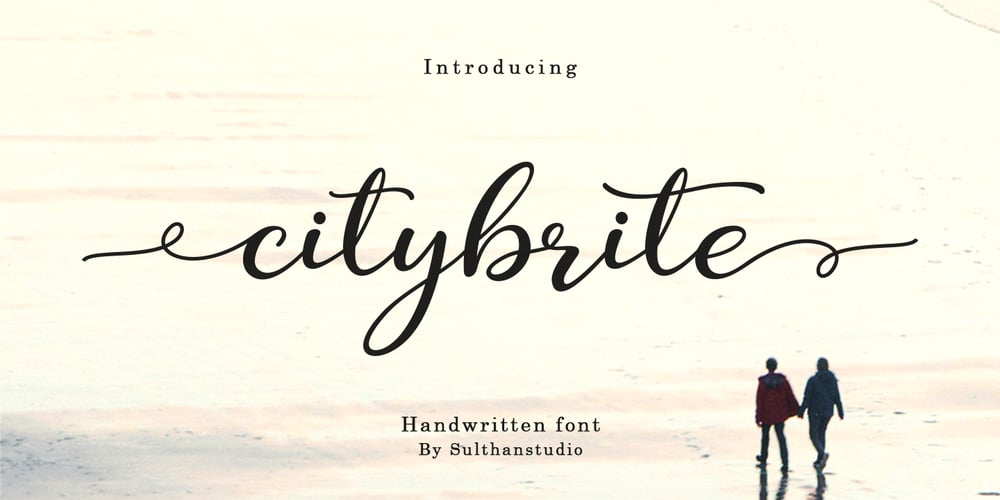
Citybrite Font Family was designed by Nasrullah and published by Sulthan Studio. Citybrite contains 1 styles and family package options. city brite is a handwritten script font that is made to look natural and also very stunning to use on wedding invitations, thank you cards, quotes, greeting cards, logos, business cards, and any other design that requires a cool handwritten touch.This font is PUA encoded which means you can access all glyphs and alternates easily!